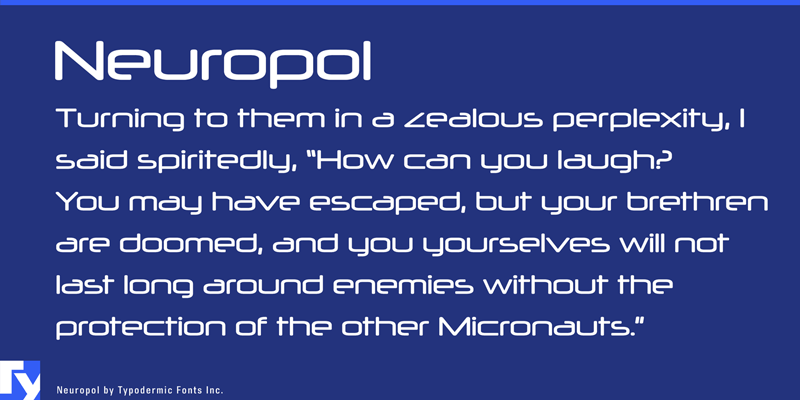
Neuropol is a wide, starkly futuristic typeface which was created in 1996. The design is based on rounded squares which were popular in earlier techno fonts such as Microgramma, Digital and Chimes. The superelliptical stroke ends give Neuropol a harmonized appearance. Truncated horizontal strokes suggest lasers or vector-beam traces. Over the last few decades, several Neuropol related font families have been released. Neuropol had been redrawn and expanded into Neuropol X in 2004. The original Neuropol font was discontinued at that time but some people still pref the 1996 version. In 2015, the original 1996 Neuropol was restored and re-released. Changes include: better kerning, higher dots on i and j, cleaner curves, heavier accents, more languages, more punctuation, the latest monetary symbols and a better @ symbol. If your application supports OpenType stylistic alternates, you can access a complete Z, similar to the one in Neuropol X. This font includes a license that allows free commercial use: sometimes referred to as a desktop license. This allows you to install the font on a computer and use it to create posters, web graphics, game graphics, t-shirts, videos, signs, logos and more. Read the license agreement for details. If you'd like to embed this font in an app, ebook, on the web or anything that's not covered by the desktop license agreement, visit the link below. You'll find distributors who offer different types of licenses or you can contact me for help. http://typodermicfonts.com/neuropol/ Also check out: http://www.dafont.com/neuropol-x-free.font More... |